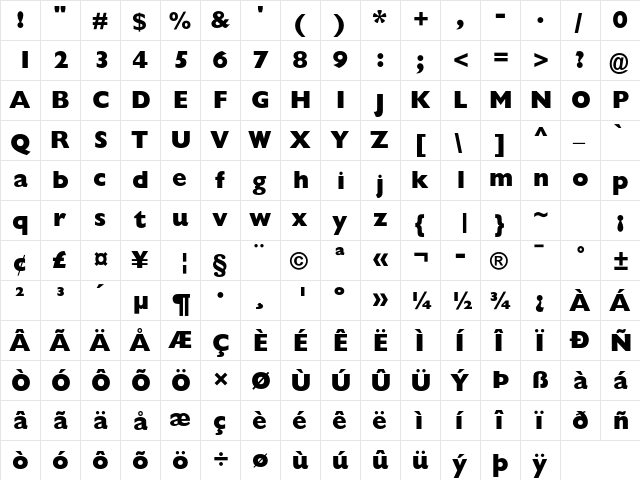
Gill Sans MT Pro ExtraBold Font Preview
Gill Sans MT Pro ExtraBold
Design Context for Gill Sans MT Pro Typeface
Gill Sans MT Pro takes a measured approach to typography — its balanced proportions and neutral character make it a reliable workhorse for both digital and print work. Its bold stroke weight gives it real presence on the page.